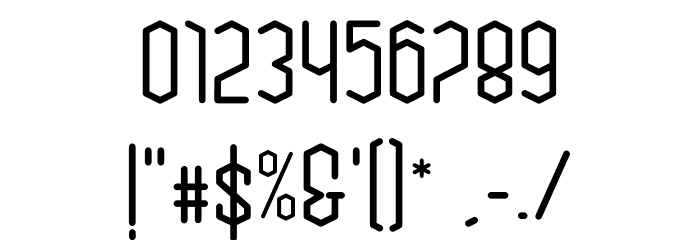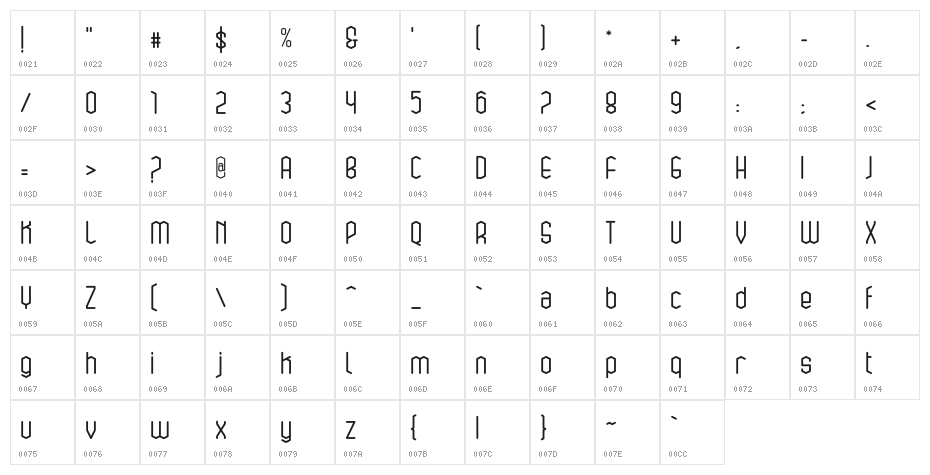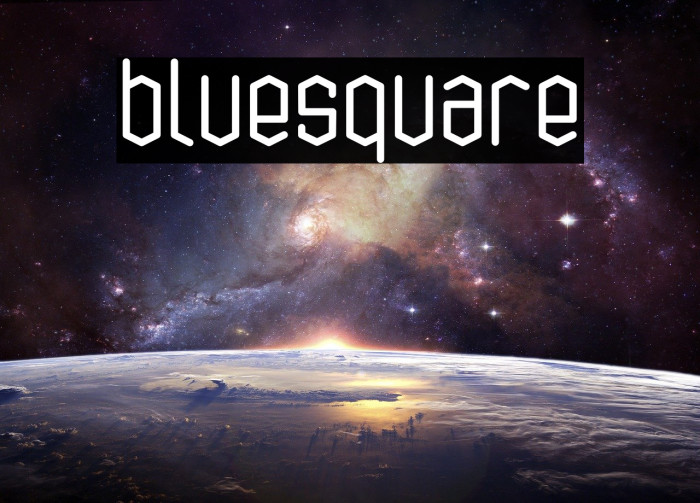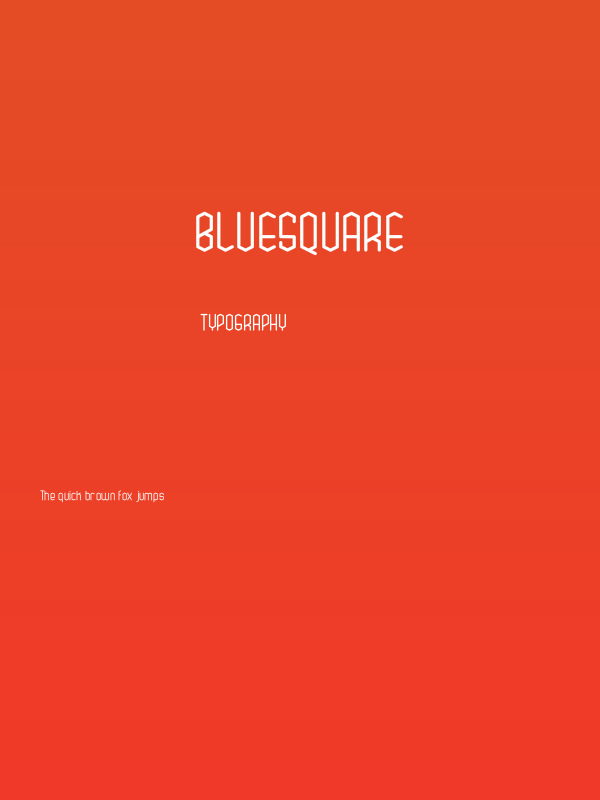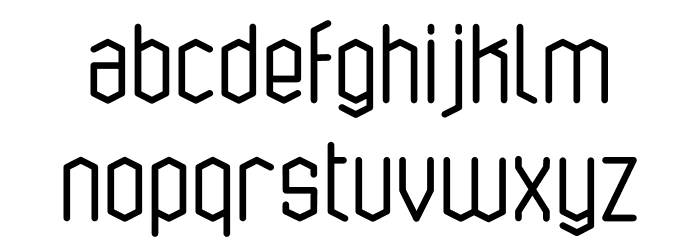
bluesquare Font
bluesquare Description
This font features a geometric, angular design with a modern and futuristic feel. The characters are constructed with straight lines and sharp angles, giving it a distinct, tech-inspired appearance. Uppercase and lowercase letters maintain a consistent height, contributing to a uniform look. The numerals and special characters follow the same design principles, ensuring cohesion across all glyphs. The overall style is clean and minimalistic, making it suitable for projects that require a contemporary and edgy aesthetic.
| Proposed Projects | Ideal for technology branding, sci-fi themed projects, modern posters, and digital interfaces. |